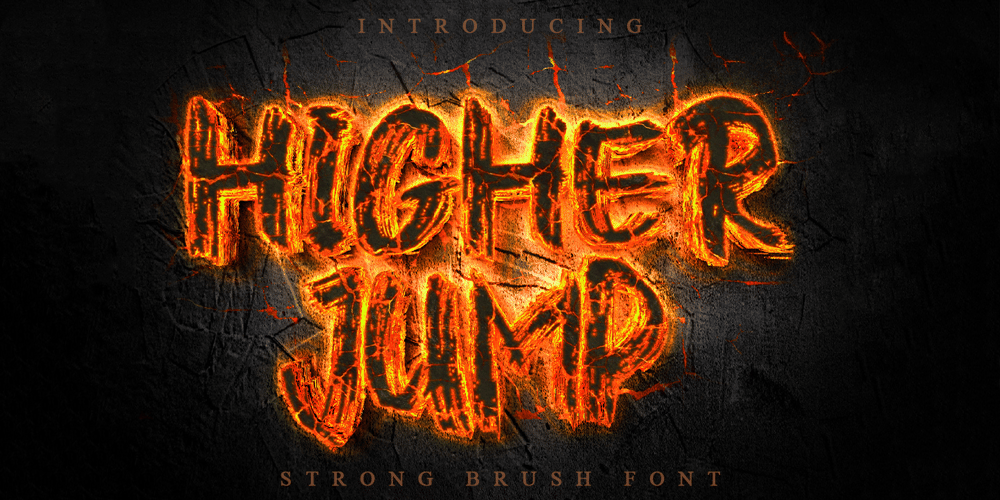
Higher Jump Font Family was designed by Thomas Aradea and published by Letterara. Higher Jump contains 1 styles and family package options. Higher Jump is a natural dry brush font. This font has a striking look and a good flow that can add a stylish personality to your designs. It’s perfect for logos, quotes, posters, clothing, and any design which needs a strong touch.